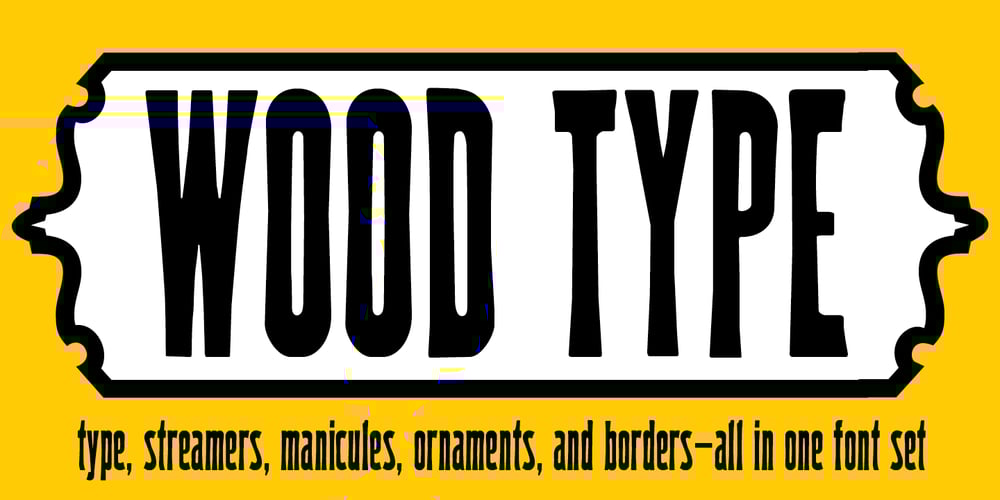
P22 Woodtype Font Family was designed by William Hamilton Page, James Grieshaber and published by P22 Type Foundry. P22 Woodtype contains 3 styles and family package options. P22 Wood Type is a set of four fonts based on 19th Century American wooden printing types. Wood Type Regular is a condensed Tuscan styled font with a lower case and international character set. Wood Type Small Caps is a variation of the regular with small caps in place of the lower case. Wood Type Extras One & Two feature over 150 borders, stars, pointers, combination dashes, manicules & other decorative embellishments. Perfect for evoking 19th Century printing & Americana at its most genuine.